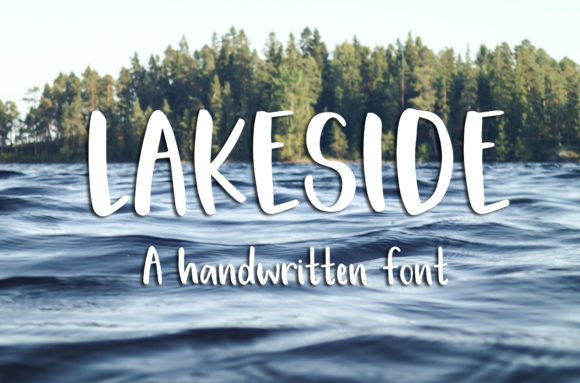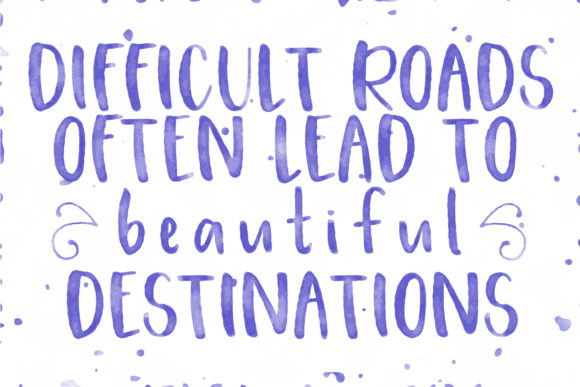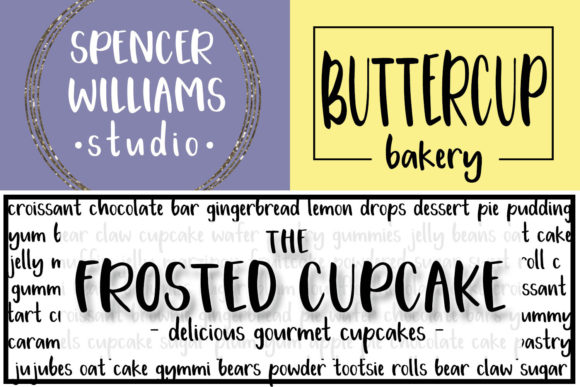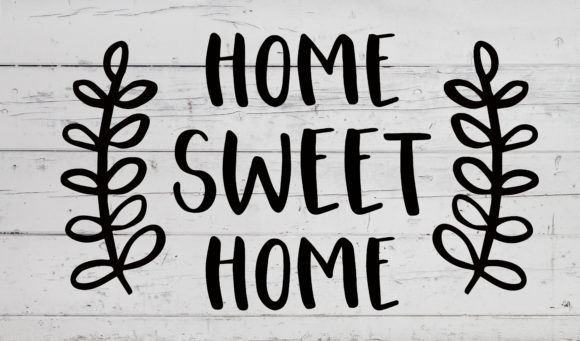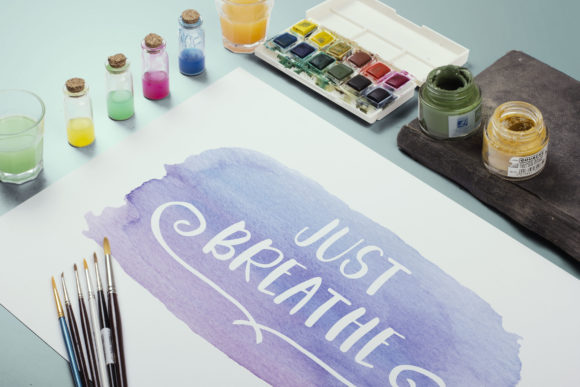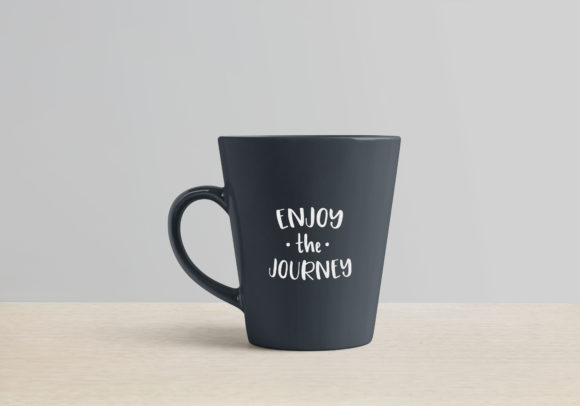
Lakeside Font
About Lakeside Font
Lakeside is a cool and crafty handwritten font. Whether you’re looking for fonts for Instagram or calligraphy scripts for DIY projects, this font will turn any creative idea into a true piece of art!